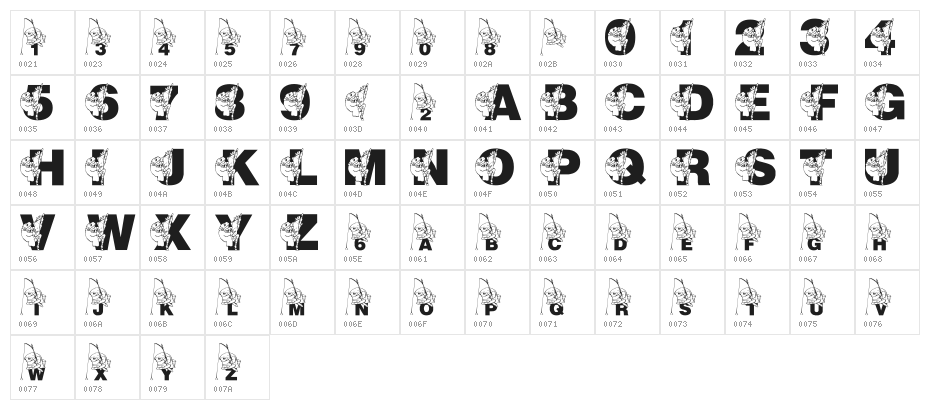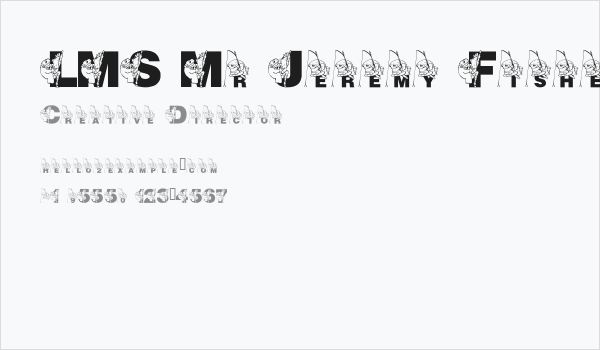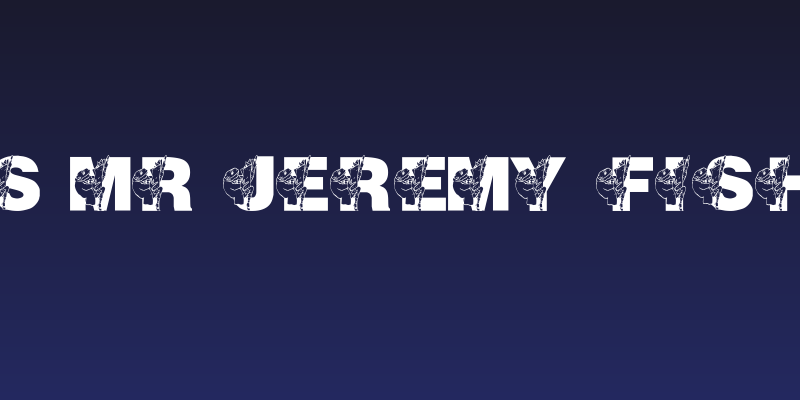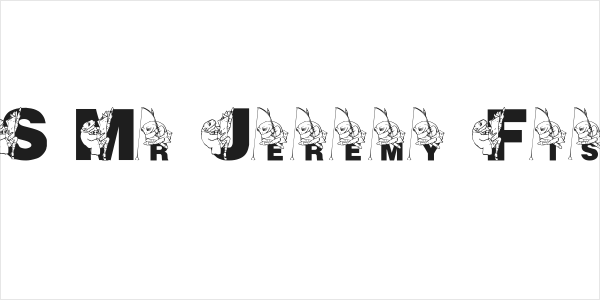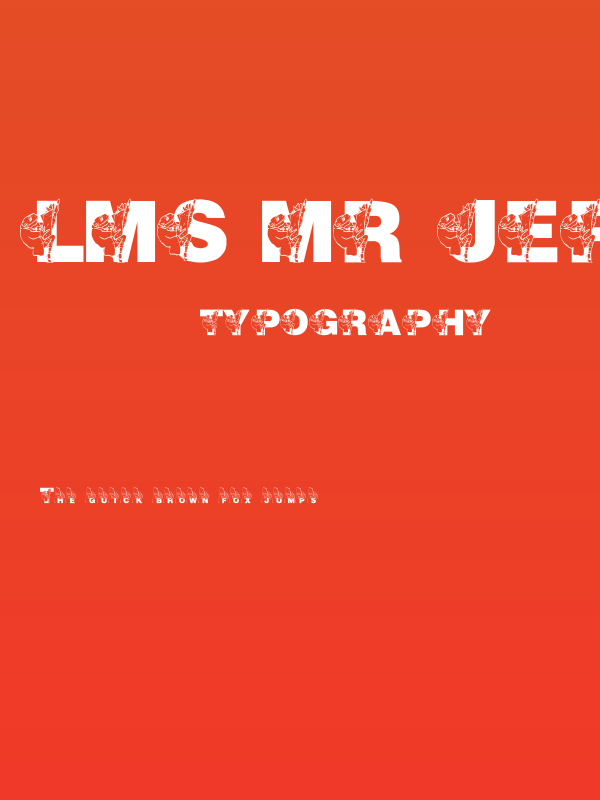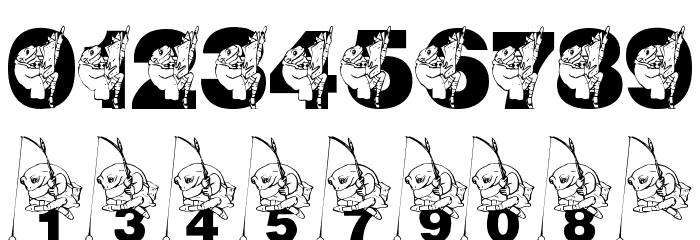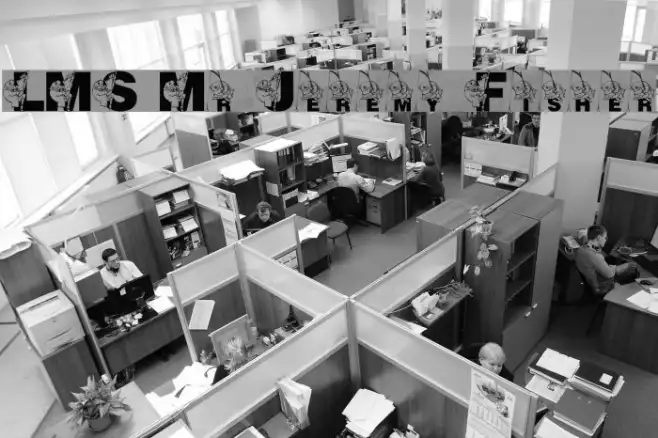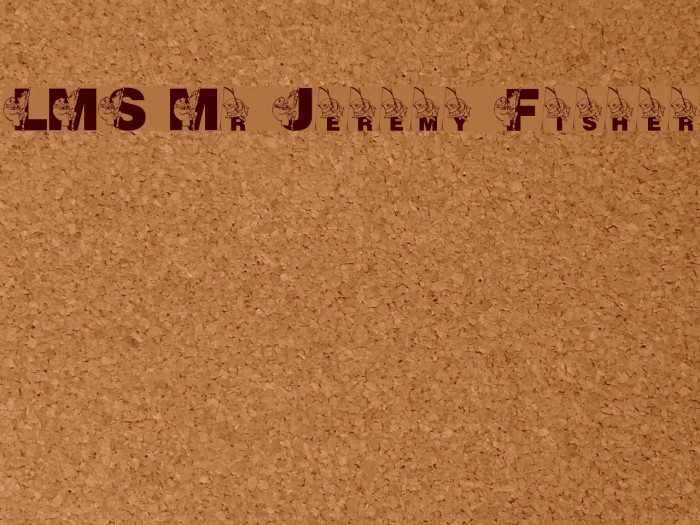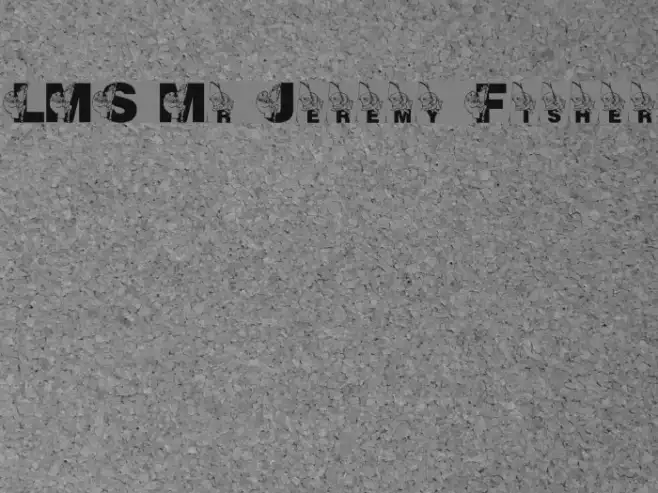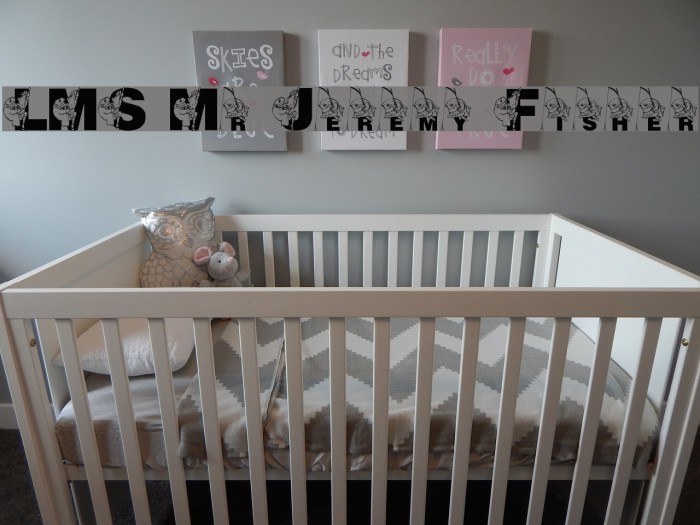
LMS Mr Jeremy Fisher Font
LMS Mr Jeremy Fisher Description
This playful and whimsical font features bold, uppercase and lowercase letters with a unique twist. Each character is integrated with an illustration of a charming character, adding a storytelling element to the design. The font maintains a consistent weight throughout, with a strong emphasis on the boldness of the letters. The character spacing is normal, ensuring readability despite the decorative elements. The numbers and special characters follow the same design principle, making the font cohesive and versatile. This font is perfect for projects that require a touch of fun and creativity, such as children's books, playful branding, or themed event invitations.
| Proposed Projects | Children's books, playful branding, themed event invitations. |